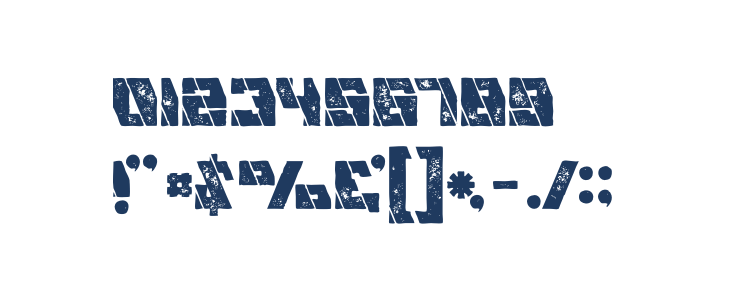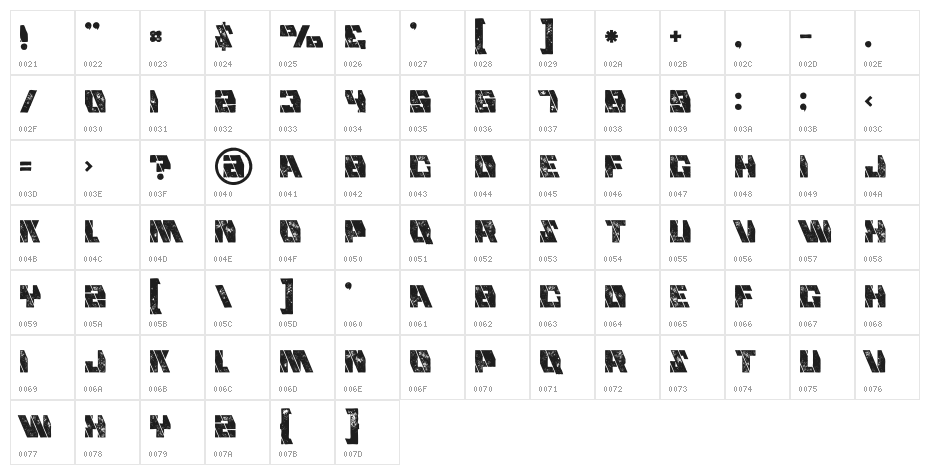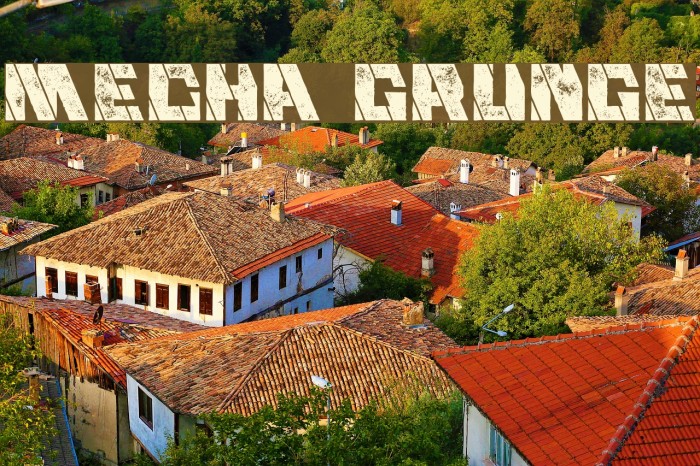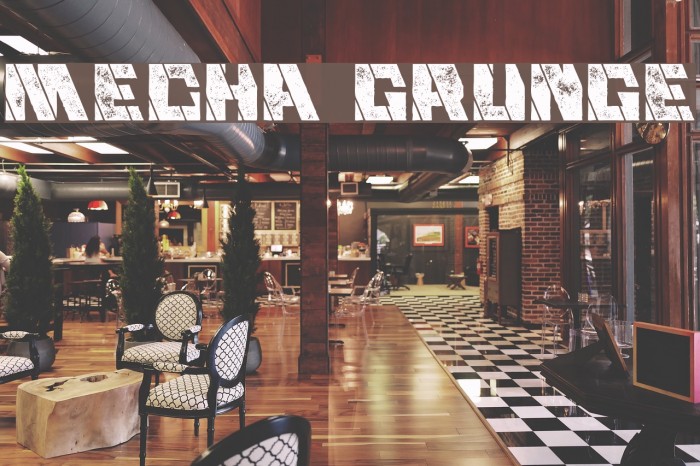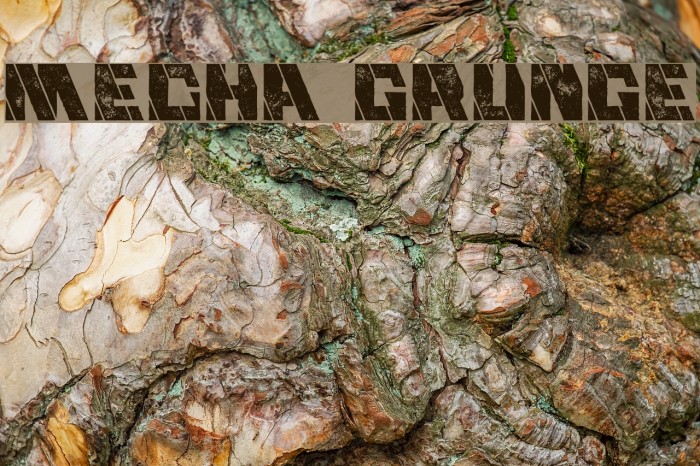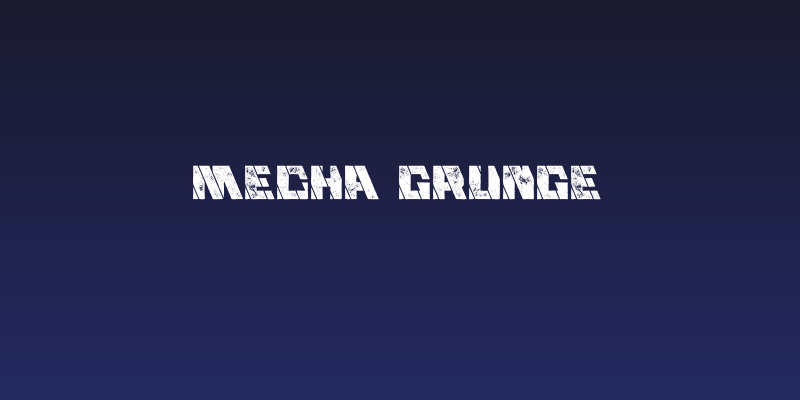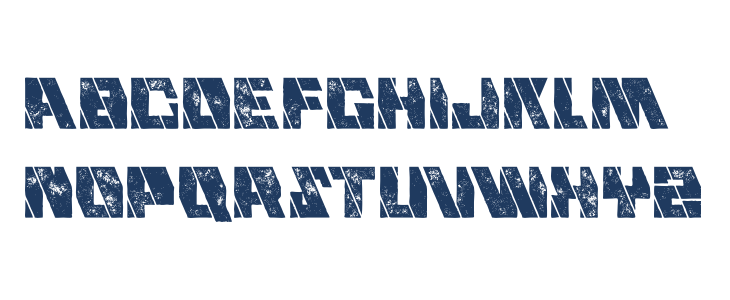
Mecha Grunge Font
Mecha Grunge Description
This font features a bold, industrial design with a distressed, grunge texture that gives it a rugged and mechanical appearance. The characters are angular and geometric, with sharp edges and a blocky structure. The distressed texture adds a worn, vintage feel, making it ideal for projects that require a gritty, urban aesthetic. The uppercase and lowercase letters maintain a consistent style, while the numbers and special characters complement the overall design. This font is perfect for creating impactful headlines, posters, and branding materials that need a strong, edgy look.
| Overall Style | Industrial, Grunge |
| Use Case | Headlines, Posters, Branding |
| Proposed Projects | Ideal for posters, album covers, video game titles, and branding that requires a gritty, mechanical aesthetic. |